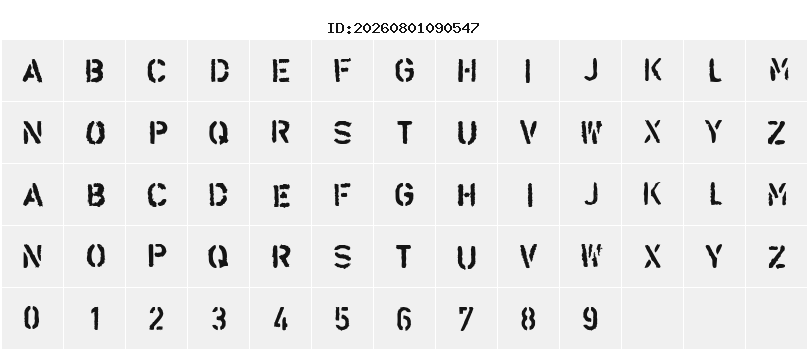
LLAlarm Preview
• Font Name: LLAlarm
About LLAlarm.ttf
LLAlarm.ttf is a modern, elegant sans-serif font designed for ultimate readability and visual harmony. Perfect for branding, headlines, web design, and print materials.